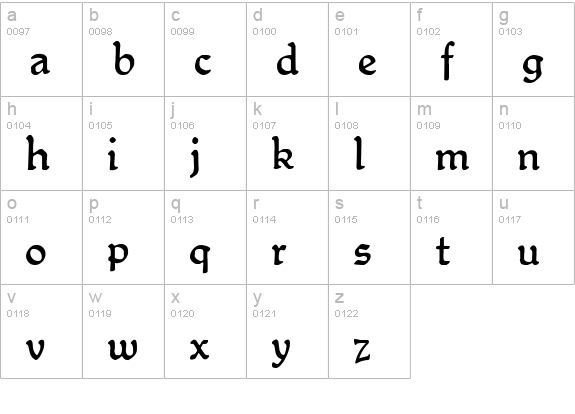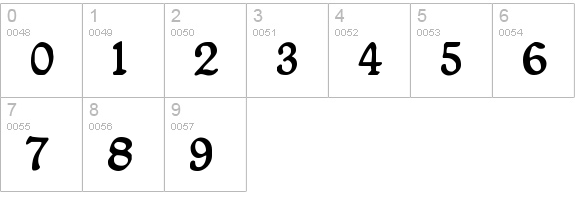
Introducing Queen Empress, a regal and majestic font that exudes elegance and sophistication. Crafted with meticulous attention to detail, this typeface is perfect for adding a touch of royalty to any design project. With its intricate letterforms and ornate embellishments, Queen Empress commands attention and leaves a lasting impression. Each character is meticulously hand-drawn to capture the essence of grandeur and opulence. Not only does Queen Empress possess a timeless beauty, but it also offers versatility in its usage. Whether it's for a luxurious wedding invitation, a high-end brand logo, or an elegant book cover, this font effortlessly elevates any design to new heights. One of the best features of Queen Empress is that it is freely available to download at FontsMarket.com. This means that designers, creatives, and enthusiasts alike can enjoy the benefits of this exquisite font without any cost. Now, you can add a touch of regality to your projects without breaking the bank. In addition to its stunning aesthetics and accessibility, Queen Empress also boasts an extensive character set. With multilingual support and a wide range of punctuation and symbols, this font ensures that your message is conveyed flawlessly, no matter the language or context. So, whether you're designing an enchanting wedding suite, a sophisticated branding project, or a captivating editorial layout, Queen Empress is the ideal font to make a statement. Its timeless elegance, versatility, and the fact that it's freely available for download at FontsMarket.com truly make it a crown jewel in any designer's toolkit. Embrace the regal allure of Queen Empress and let your creativity reign supreme.